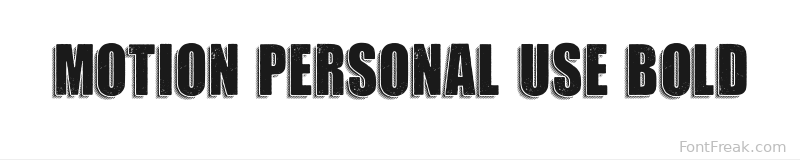
MOTION PERSONAL USE Bold
About MOTION PERSONAL USE Bold
MOTION PERSONAL USE Bold, designed by Billy Argel Fonts, is a striking display font that captures attention with its bold, robust character. This font embodies a unique, modern aesthetic suitable for various creative projects. As a display typeface, it features thick stroke weights and a sturdy presence, making it ideal for headlines and other prominent text. The contrast in the strokes provides a dynamic visual appeal, while the slightly condensed spacing enhances legibility even at larger sizes.
This versatile font shines in multiple applications, making it a great choice for graphic designers and content creators. It’s particularly effective for movie posters, where its boldness can evoke excitement and drama. Additionally, it can elevate restaurant menus, giving them a contemporary flair that stands out to diners. Wedding invitations can also benefit from the font’s striking appearance, providing an eye-catching element that conveys modern elegance. Furthermore, it can be utilized in promotional materials for small businesses, ensuring that their messaging remains clear and impactful.
The target audience for MOTION PERSONAL USE Bold includes graphic designers looking to enhance their projects with a distinctive font, small business owners who want to make a memorable impression, and content creators seeking to engage their audiences visually.
What sets MOTION PERSONAL USE Bold apart is its perfect blend of strength and style. Its free availability as a freeware font allows creatives to experiment without financial constraints, while its bold design ensures that it will always be a focal point in any layout. For those interested in making a statement, the MOTION PERSONAL USE Bold font free download offers an exceptional resource for all kinds of design endeavors.